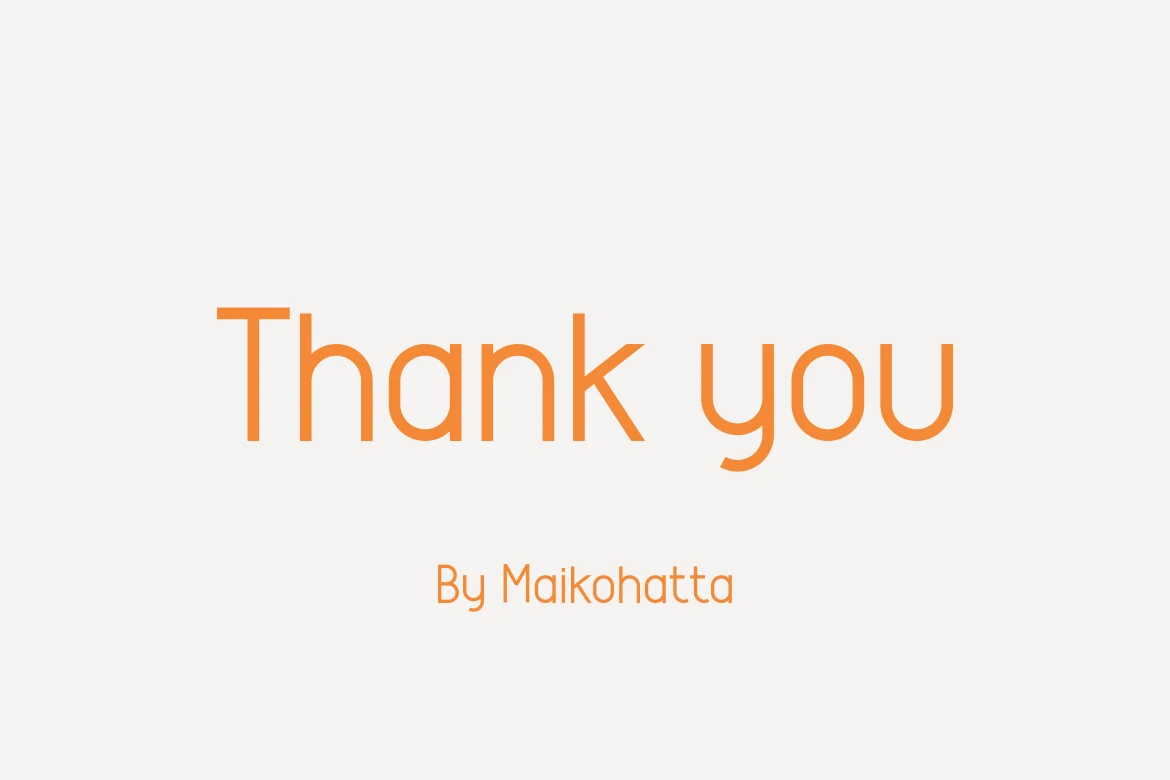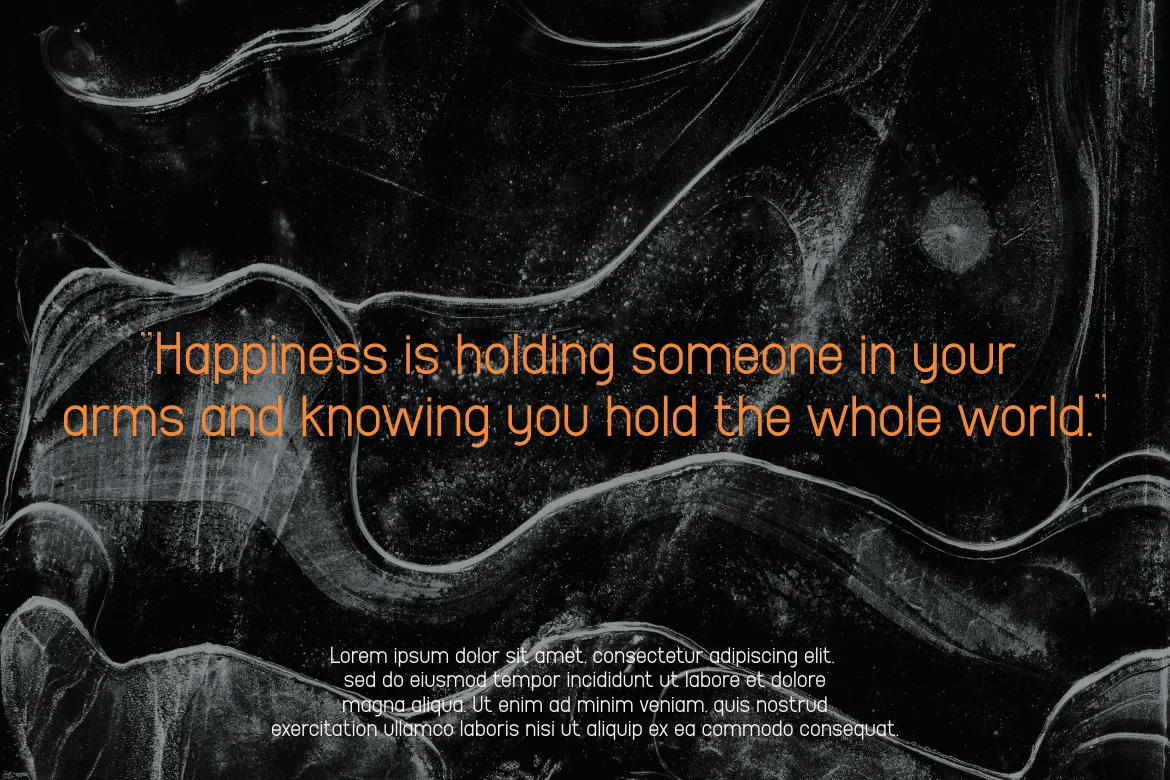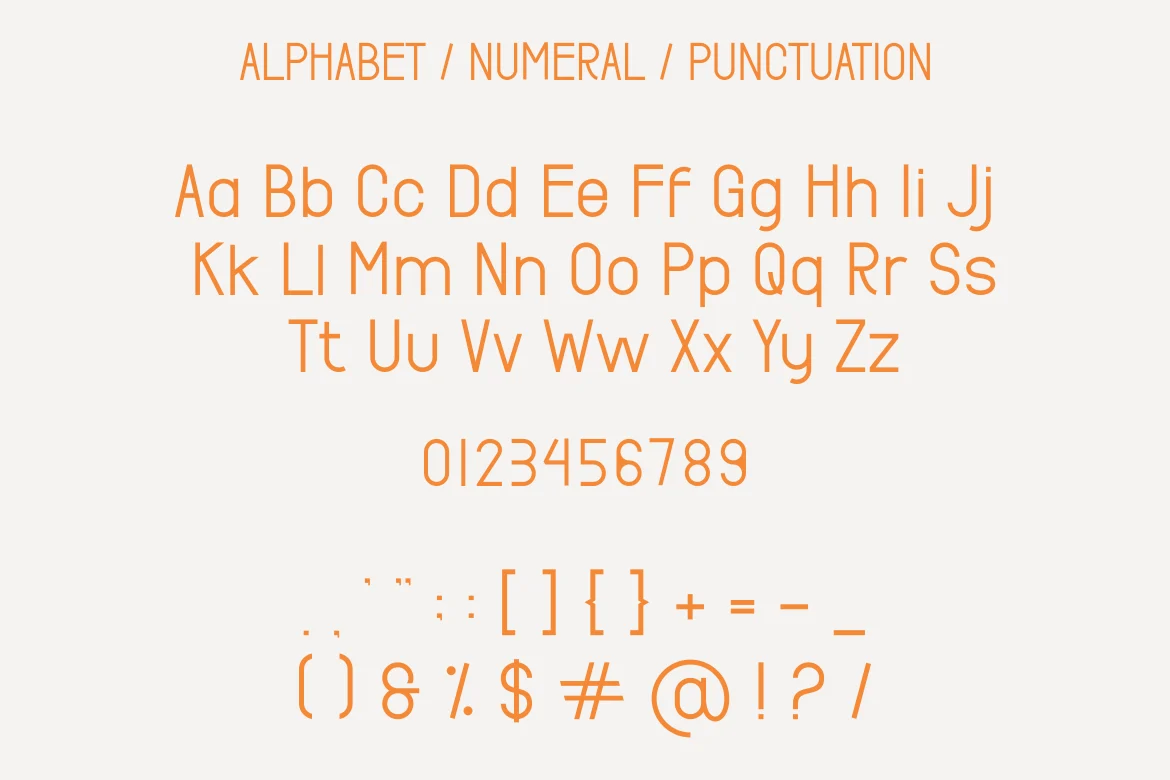
Gibral Font
Introducing our new product Gibral Font - Modern Font
Gibral Font - Modern Font is a bold and authentic display font. The font is suitable for any branding project like logo, t-shirt printing, esport, and many more. outstanding in a wide range of contexts.